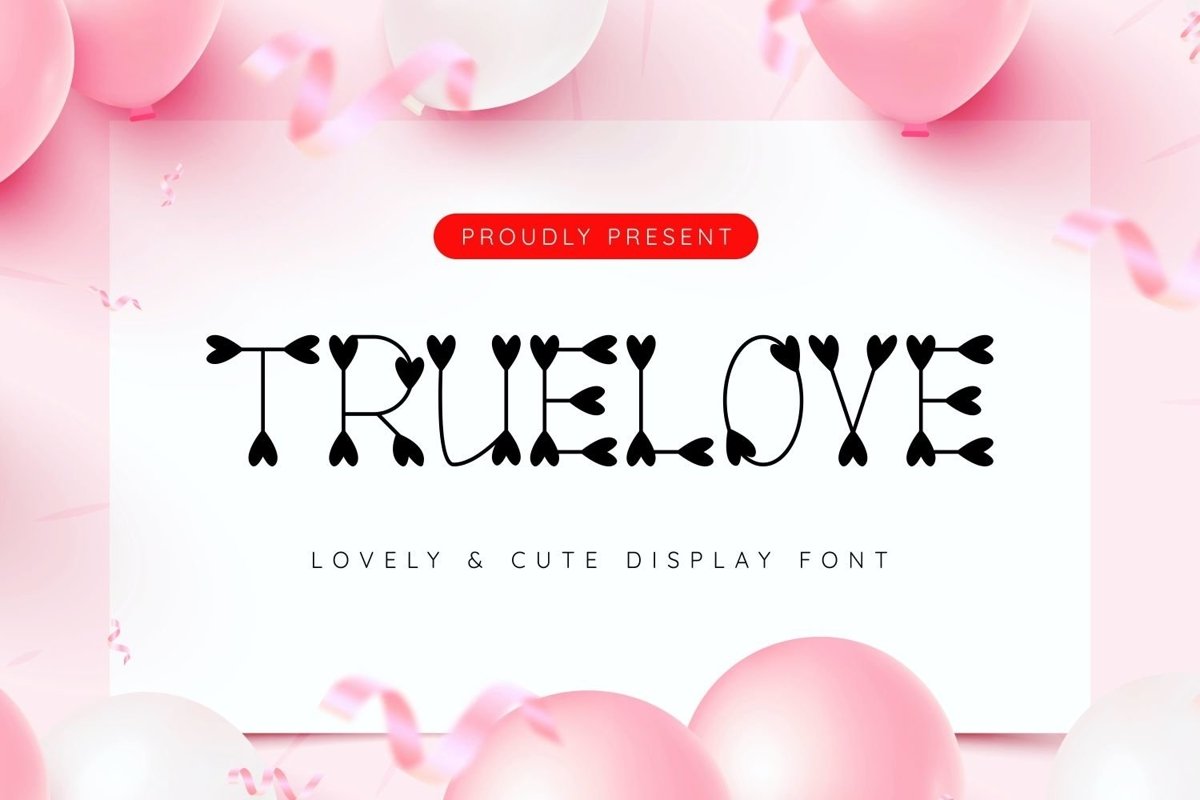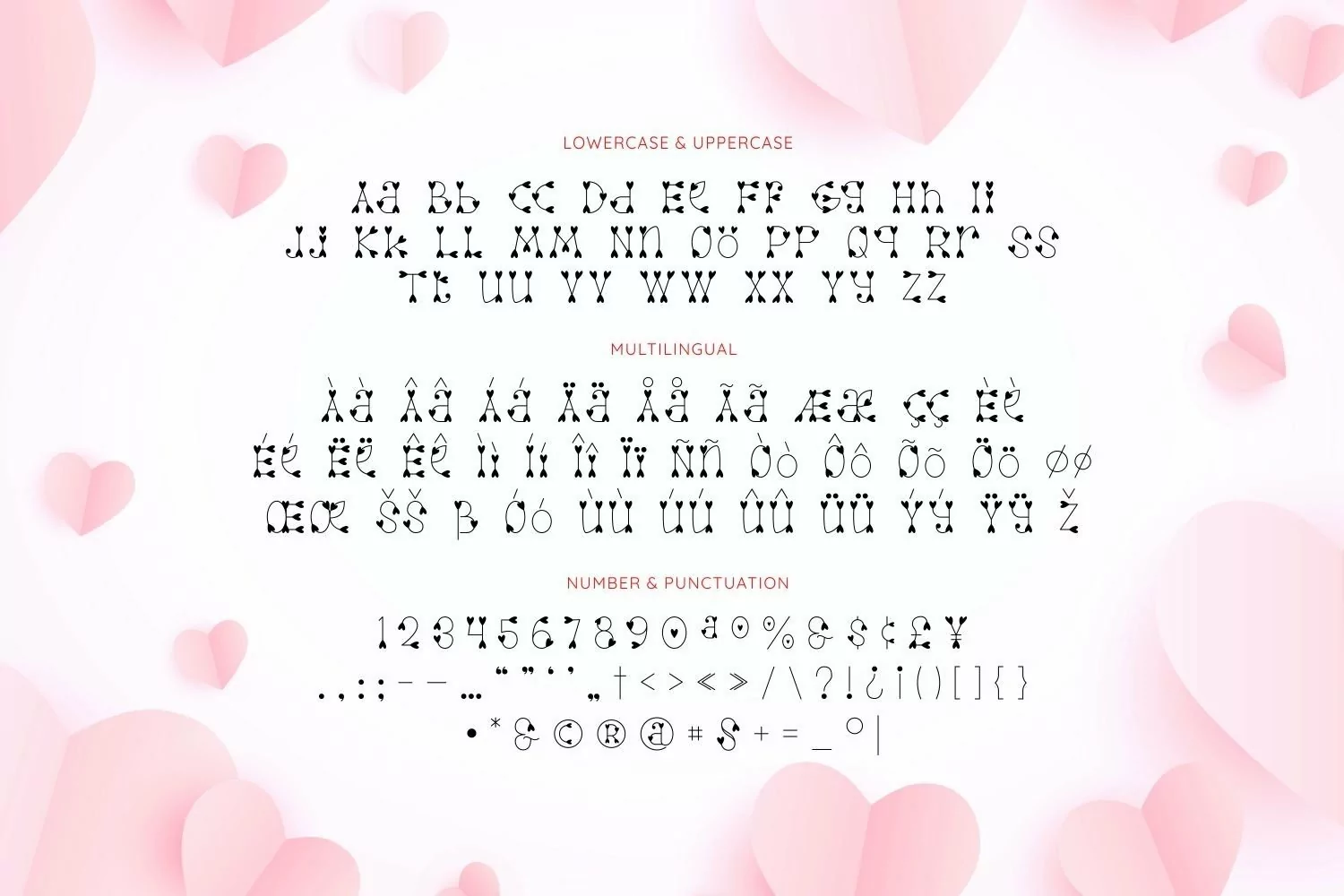
Truelove is a crafted serif display come with cute and lovely themes. We wanted to create serif looks love shape in all characters. It matches applies in some designs such as the logotype, brand, packaging, quotes, cute poster, beauty shirt, cover book, birthday invitation and more custom design. The features uppercase, lowercase, numeral, punctuation & symbol, multilingual support, PUA encoded (fully accessible without additional design software).